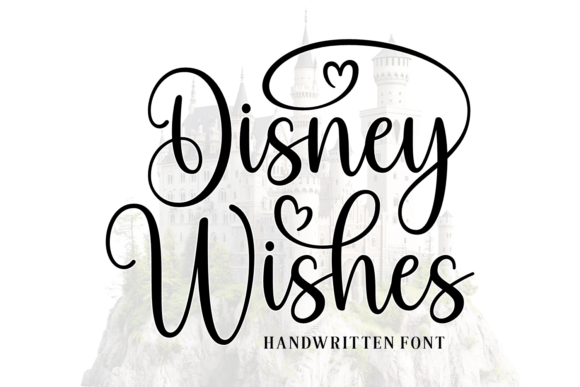
Disney Wishes Font: A Magical Script Font for Enchanting Creations
Are you looking for a font that can add a touch of magic and whimsy to your designs? Look no further than the Disney Wishes Font, a beautifully crafted script font that is perfect for fairytale-inspired creations. With its intricate design and charming twist, this font is sure to evoke a timeless elegance and create a dreamy ambiance in your artworks.
What is Disney Wishes Font?
Disney Wishes Font is a handwritten script font that is designed to capture the essence of Disney’s magical and whimsical style. This intricately crafted font features a romantic and modern calligraphy design, making it perfect for love-themed artworks, wedding invitations, and birthday celebrations.
The font’s design is inspired by the classic Disney style, with a charming and whimsy twist that sets it apart from other script fonts. Its elegant and flowing lines create a sense of movement and fluidity, making it perfect for designs that require a touch of sophistication and glamour.
Features of Disney Wishes Font
The Disney Wishes Font has several features that make it a standout choice for designers. Some of its key features include:
- Intricately crafted design: The font features an intricately crafted design with elegant and flowing lines that create a sense of movement and fluidity.
- Romantic and modern calligraphy: The font’s design is inspired by romantic and modern calligraphy, making it perfect for love-themed artworks and wedding invitations.
- Charming and whimsy twist: The font has a charming and whimsy twist that sets it apart from other script fonts, making it perfect for fairytale-inspired creations.
- Timeless elegance: The font’s design evokes a timeless elegance that is perfect for designs that require a touch of sophistication and glamour.
Uses of Disney Wishes Font
The Disney Wishes Font is a versatile font that can be used for a variety of design projects. Some of the most popular uses of the font include:
- Love-themed artworks: The font’s romantic and modern calligraphy design makes it perfect for love-themed artworks, such as Valentine’s Day cards and romantic posters.
- Wedding invitations: The font’s elegant and flowing lines make it perfect for wedding invitations, adding a touch of sophistication and glamour to your designs.
- Birthday celebrations: The font’s charming and whimsy twist makes it perfect for birthday celebrations, adding a touch of magic and whimsy to your designs.
- Fairytale-inspired creations: The font’s design is inspired by classic Disney style, making it perfect for fairytale-inspired creations, such as children’s book illustrations and fantasy-themed posters.
Benefits of Using Disney Wishes Font
There are several benefits to using the Disney Wishes Font in your designs. Some of the most significant benefits include:
- Unique and distinctive design: The font’s design is unique and distinctive, making it perfect for designers who want to add a touch of magic and whimsy to their designs.
- High-quality design: The font is designed to high standards, with intricate details and elegant lines that create a sense of movement and fluidity.
- Versatile: The font is versatile and can be used for a variety of design projects, from love-themed artworks to wedding invitations and birthday celebrations.
The Disney Wishes Font is a magical script font that is perfect for fairytale-inspired creations. With its intricate design and charming twist, this font is sure to evoke a timeless elegance and create a dreamy ambiance in your artworks. Its romantic and modern calligraphy design makes it perfect for love-themed artworks, wedding invitations, and birthday celebrations. Whether you’re a professional designer or a DIY enthusiast, the Disney Wishes Font is a great choice for adding a touch of magic and whimsy to your designs.
- What is the Disney Wishes Font?: The Disney Wishes Font is a handwritten script font that is designed to capture the essence of Disney’s magical and whimsical style.
- What are the features of the Disney Wishes Font?: The font features an intricately crafted design, romantic and modern calligraphy, a charming and whimsy twist, and a timeless elegance.
- What are the uses of the Disney Wishes Font?: The font can be used for love-themed artworks, wedding invitations, birthday celebrations, and fairytale-inspired creations.